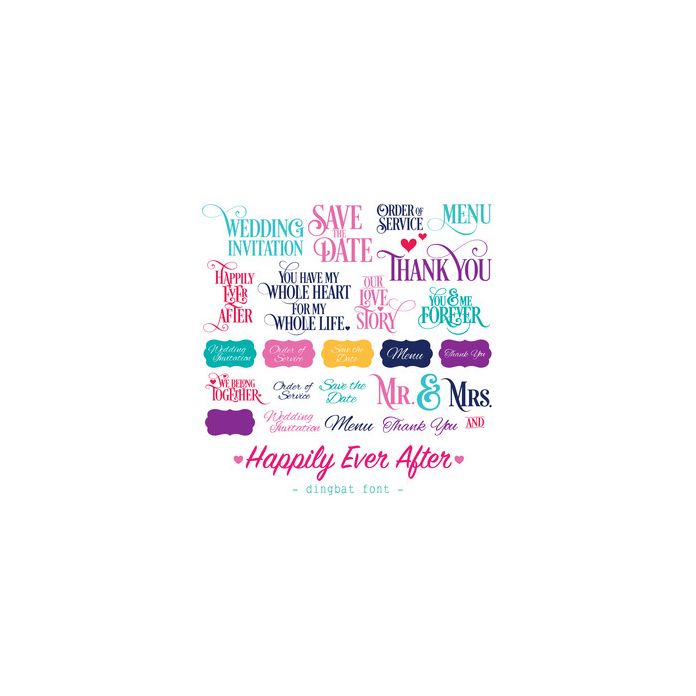
happily ever after font
Happily Ever After Wedding Stationery Quote and Sentiment Dingbat Font. Includes 26 sentiments, perfect for making wedding stationery, card making sentiments, inserts, scrapbooking, gifts and all kinds of craft projects!. All are assigned to an upper case letter starting with 'A' or can be accessed via glyphs. For more design ideas, coordinating designs & products and inspiration, please visit my blog http://www.sarahhurleyblog.com